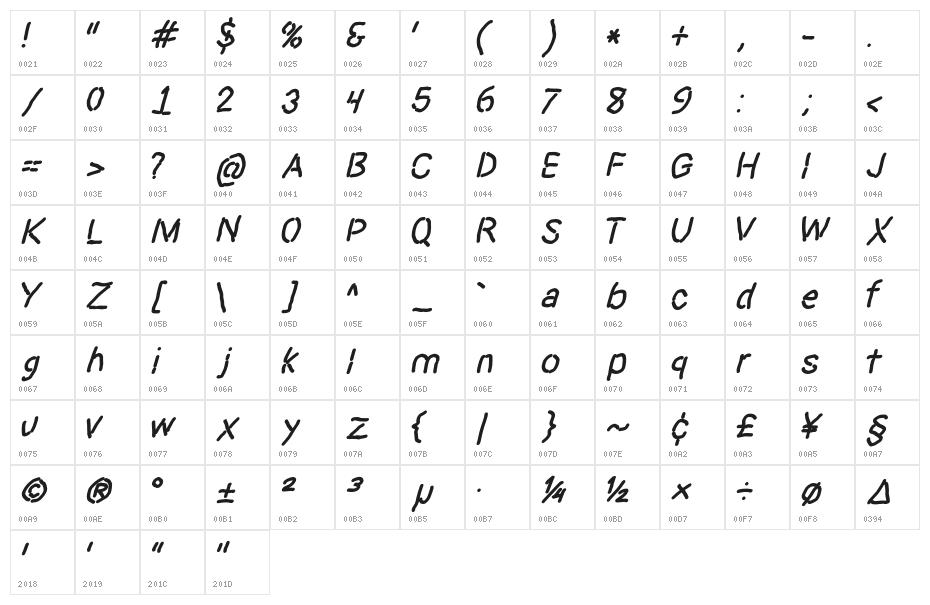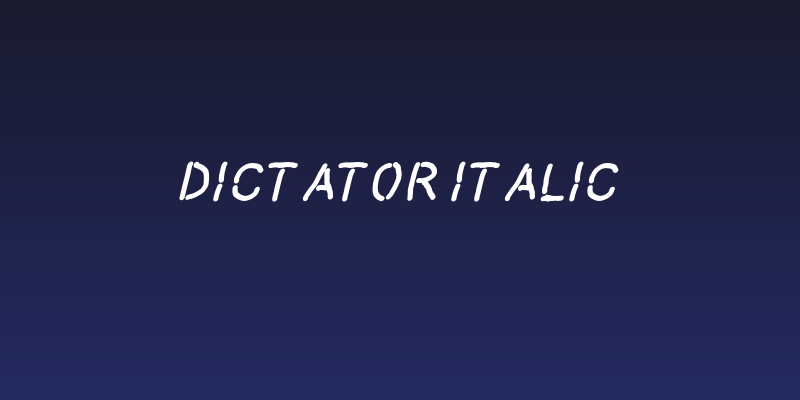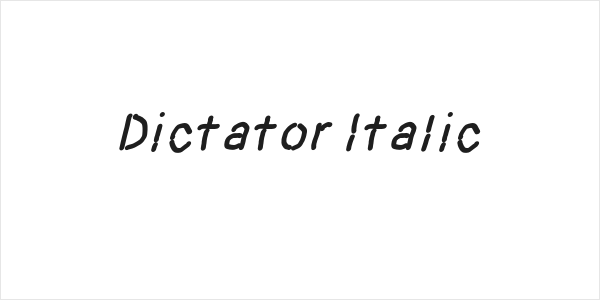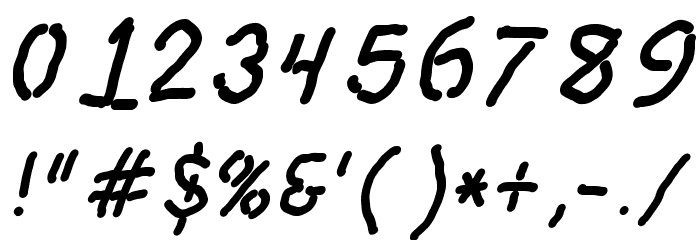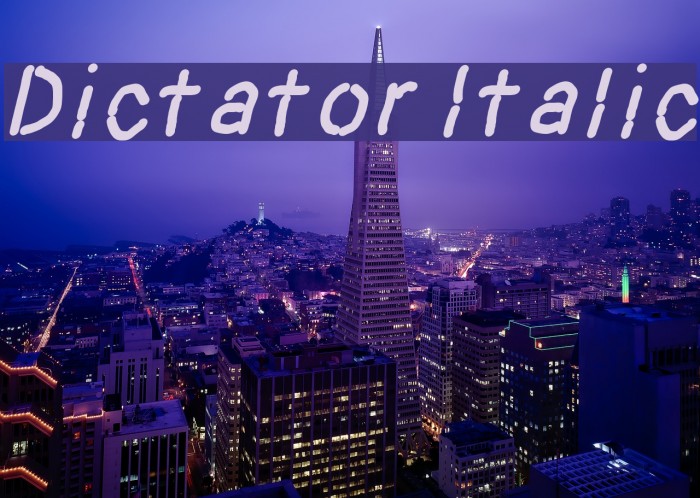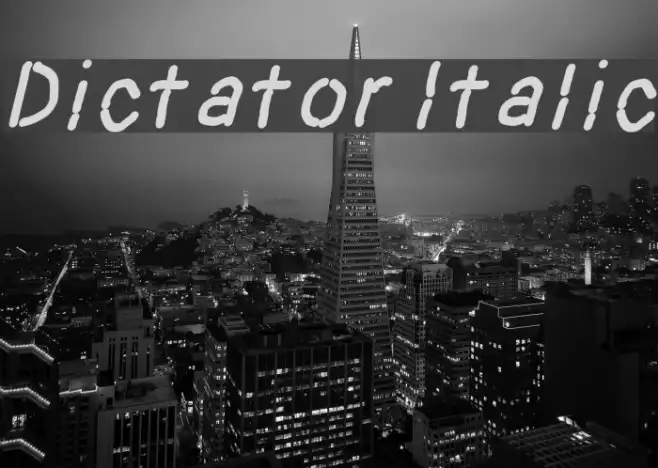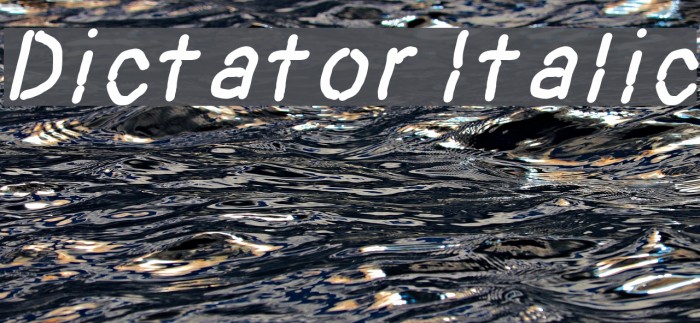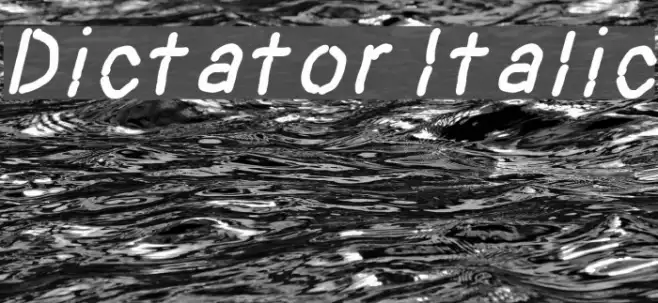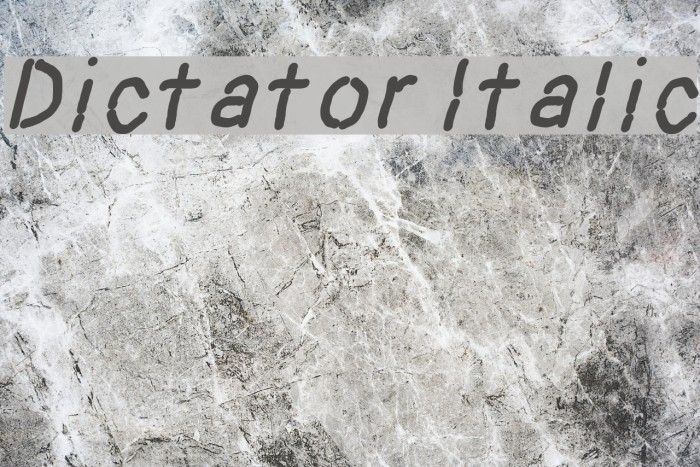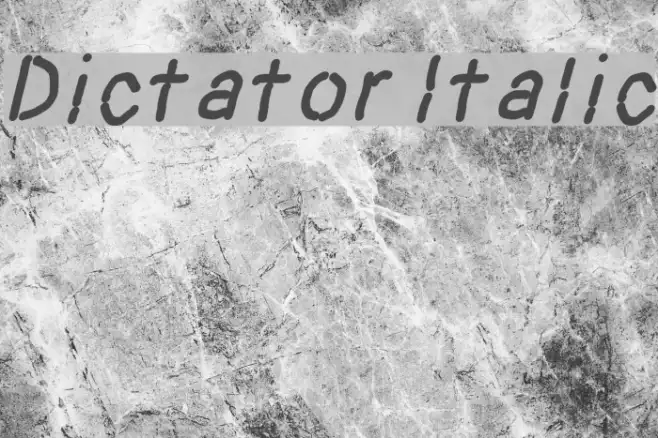
Dictator Italic Font
| Style général | Casual, Handwritten |
| Cas d'utilisation | Informal text, Creative projects, Personal notes |
| Projets proposés | Ideal for personal notes, informal invitations, greeting cards, and creative projects that require a handwritten touch. |